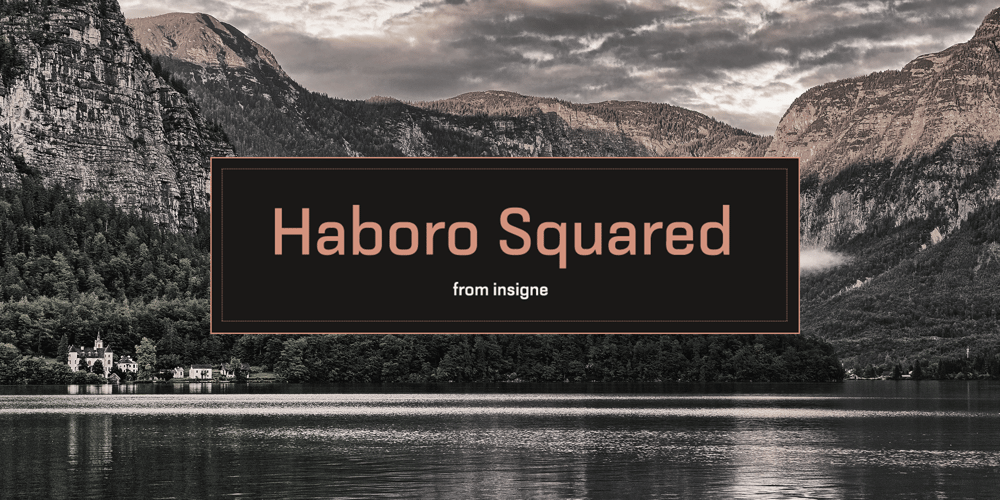
Haboro Squared
Haboro Squared font
Haboro Squared Font Family was designed by Jeremy Dooley and published by insigne. Haboro Squared contains 54 styles and family package options. Haboro Squared is a formidable typeface, created for a variety of uses. Clean and consistent, it evokes the 1950s and 1960s. Haboro Squared conveys accuracy and utility with its clean, consistent strokes. In the 1950s and 1960s, designers and the general public began to reject the austerity of the war years in favor of a new sense of American optimism. This era is reflected in Haboro Squared’s gently rounded letters, playful alternates, and multi-purpose use. Whether you are creating a logo, crafting a website, or designing a magazine article, Haboro balances modernity with a hint of nostalgia.Haboro Squared achieves a balance between fashion and practicality. Even though it has an angular, modern design, it radiates friendliness and warmth. Haboro Squared works well for headings and brief texts.This collection of fonts consists of eight weights, from Thin to Black, each with a corresponding italic. Your design will seem robust and fashionable with so many options. Haboro plenty of alternate glyphs from which you can select an alternative or adjust the appearance of each letter.You’ve found a secret weapon. The Haboro Hyperfamily features a whole array of options, from Haboro Sans, Serif, to Haboro Didone. Take a look at the entire family.Even the most serious texts have a touch of whimsy thanks to the quirky alternate terminals in this multipurpose text face. Impress clients with your next branding package, web site, or magazine spread. Let the nostalgia of America’s post WWII heyday fill you with inspiration! Supercharge your next branding package, web site, or magazine spread with Haboro Squared!